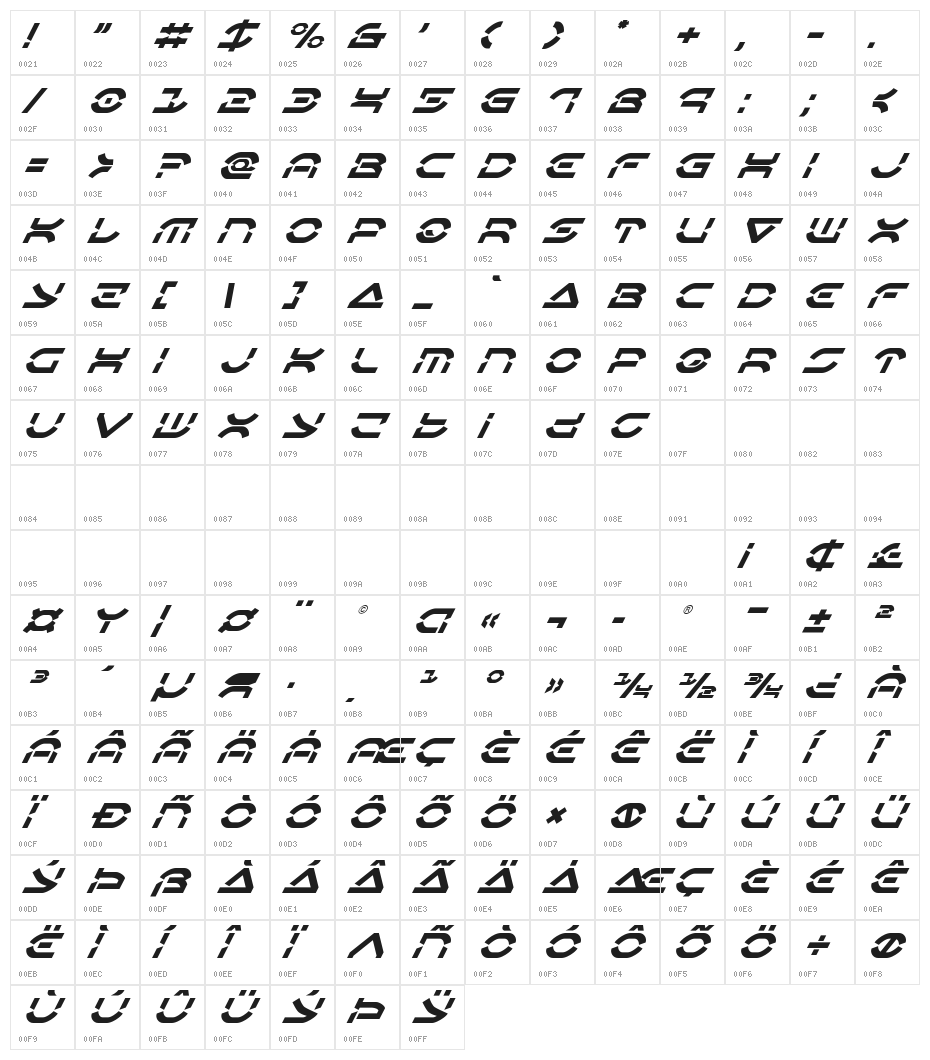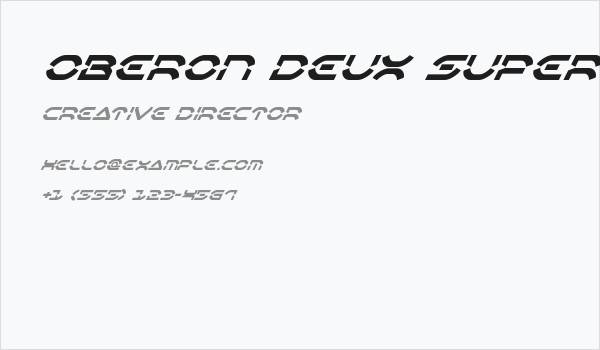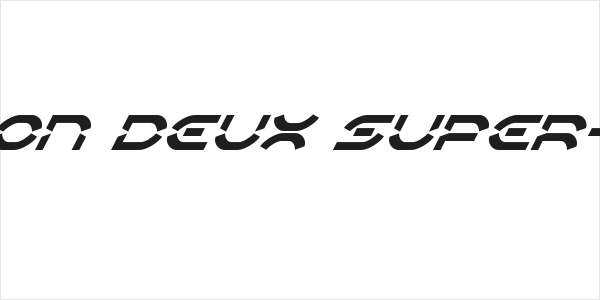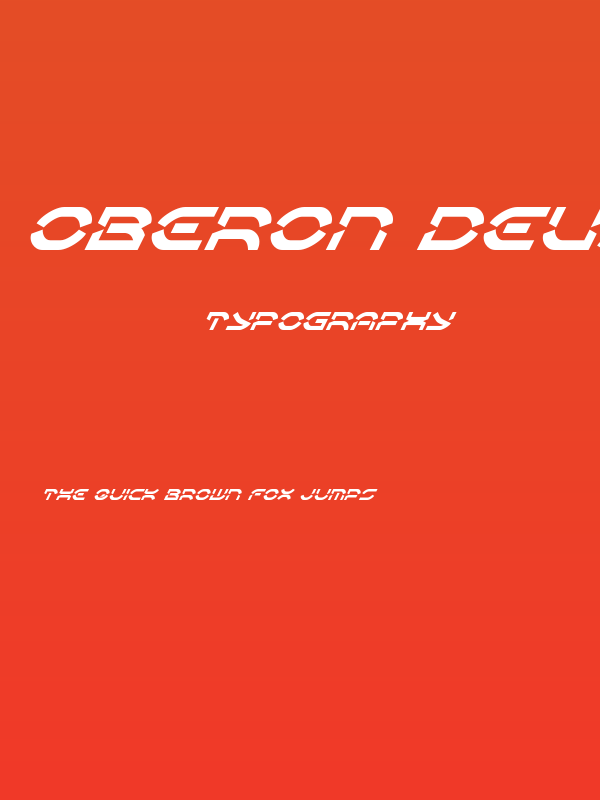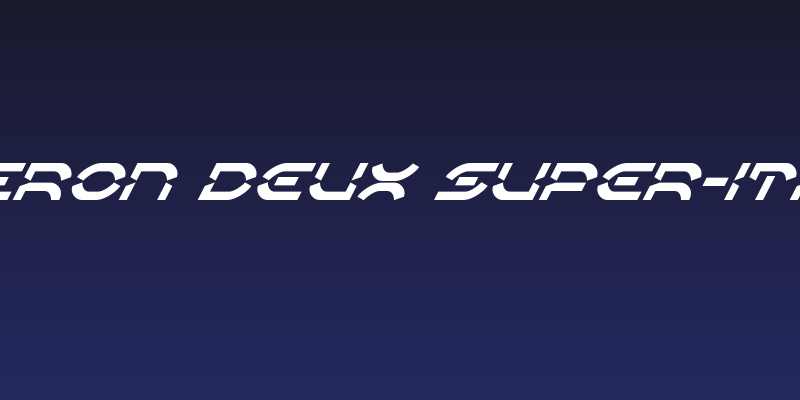
Oberon Deux Super-Italic Font
Oberon Deux Super-Italic Description
This font features a futuristic and dynamic design with sharp angles and a slanted, italicized style. The characters are bold and have a distinct geometric structure, creating a sense of movement and speed. The uppercase and lowercase letters maintain a consistent style, with unique cuts and lines that give the font a modern, tech-inspired look. Numbers and special characters follow the same design principles, ensuring uniformity across all glyphs. The font's boldness and angularity make it stand out, ideal for projects that require a strong visual impact.